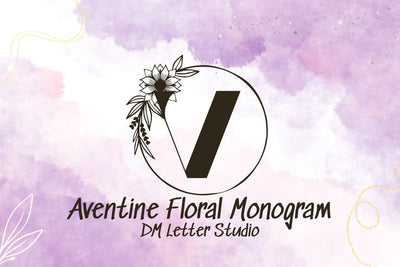
Aventine Floral Monogram
Aventine Floral Monogram – Decorative Serif Font
Aventine Floral Monogram is a luxurious and intricately designed decorative font that blends classic serif elegance with botanical flair. Each letter is adorned with floral embellishments, making it the perfect choice for high-end branding, wedding stationery, initials-based logos, and elegant packaging. Aventine brings timeless sophistication and natural beauty together in every glyph.
Floral-Embedded Letters: Elegant serif characters enhanced with graceful floral motifs.
Monogram Ready: Designed specifically for initials, logos, and ornamental typographic designs.
High-End Aesthetic: Refined detail that evokes a sense of luxury and tradition.
Ideal For: Wedding monograms, brand initials, invitations, boutique packaging, personal stationery, and upscale logos.